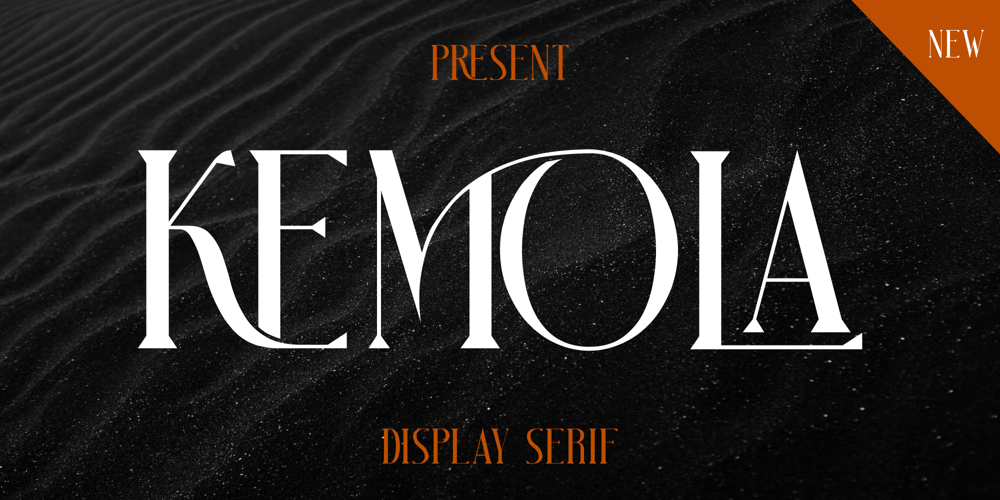
Kemola
Kemola font
Kemola Font Family was designed by Hunaiza Aljahsy and published by HunaizaAljahsy. Kemola contains 1 styles and family package options. Introducing KemolaKemola is a modern and elegant sans serif font. Kemola is well-suited for advertising, branding, logotypes, packaging, titles, headlines and editorial design. I created more much alternates variant and much natural ligatures to make this font very classy and look so beauty. Kemola was built with open type features make your project will be perfect.